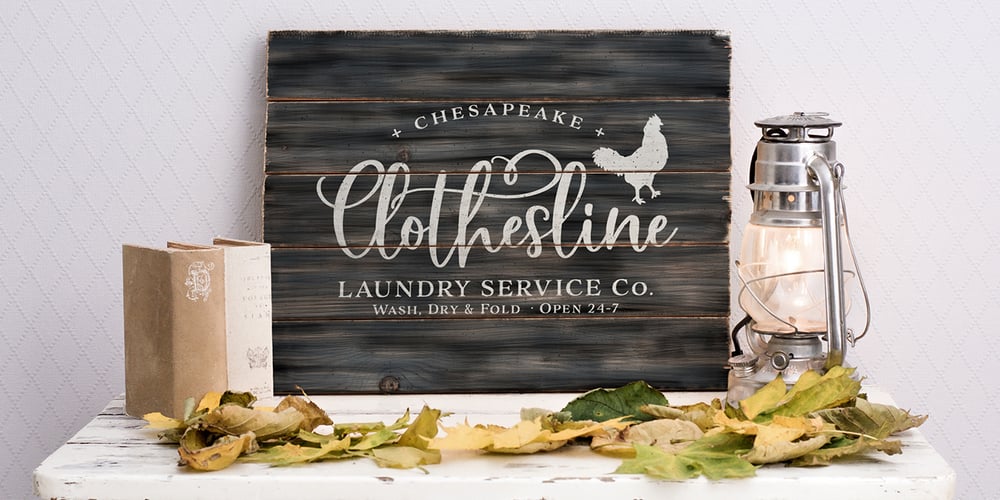
Bushel And Peck Font Family was designed by Callie Hegstrom and published by Make Media Co. Bushel And Peck contains 3 styles and family package options. Introducing Bushel and Peck – A flirty, bouncy, SMOOTH Script with over 50 alternates, a handy Sans Serif, and an adorable Dingbat style with loads of farmhouse charm. Use this sweet trio to make logos, greeting cards, signage, apparels, totes, mugs and more!